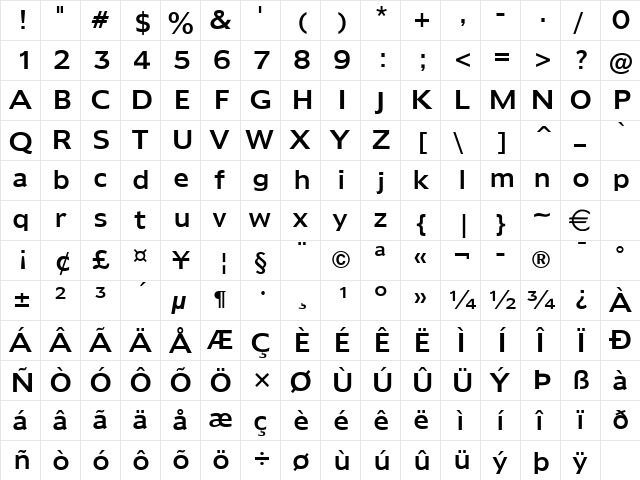
Adams Normal
Design Context for Adams Typeface
Adams takes a measured approach to typography — its balanced proportions and neutral character make it a reliable workhorse for both digital and print work.
Pro Tip: Pair Adams with a font of contrasting weight or personality to build a more expressive typographic hierarchy.